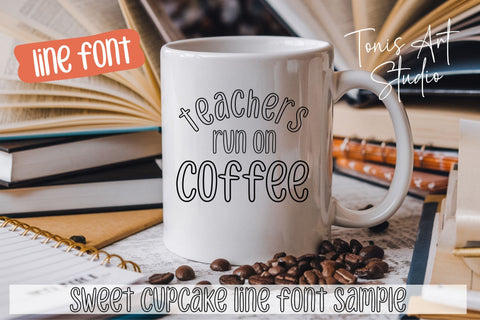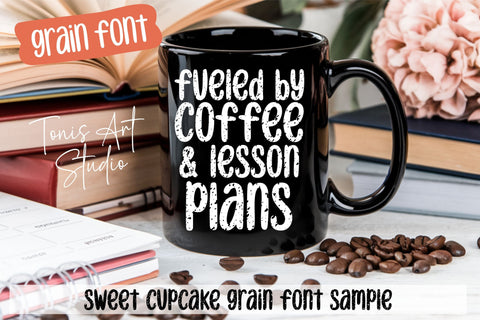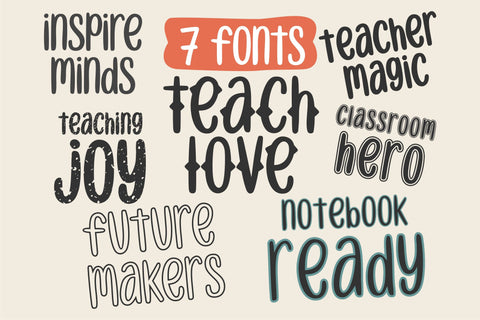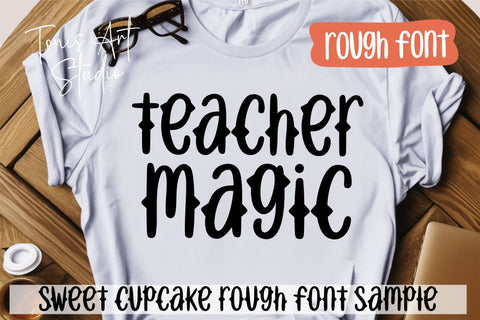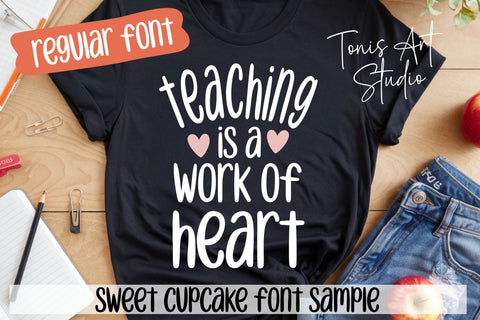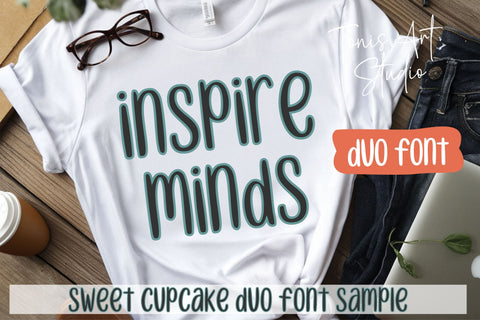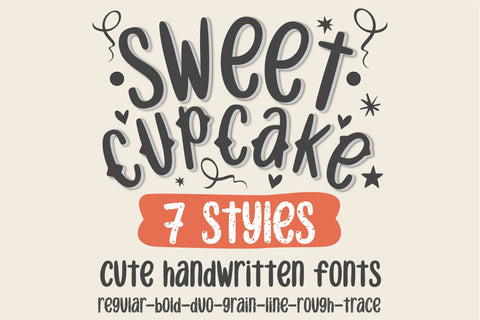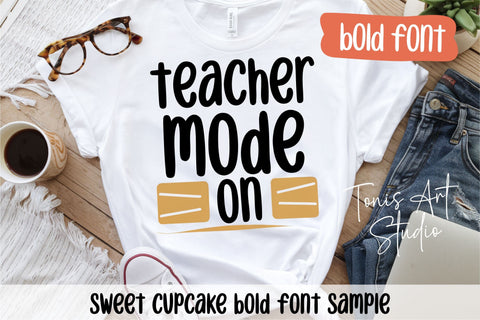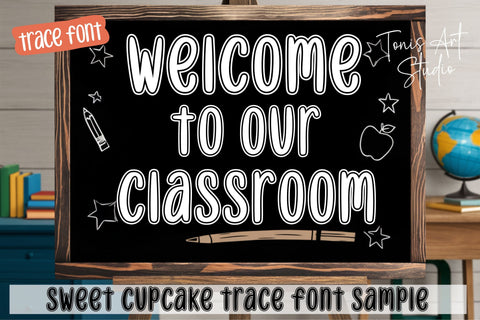
Sweet Cupcake Font Bundle, Cute Handwritten Fonts
Introducing the Sweet Cupcake Font Bundle, a delightful collection of seven playful handwritten fonts designed to add charm and creativity to your projects. This bundle includes the following styles:
Regular: A clean and simple handwritten style.
Bold: A thicker, more pronounced version for emphasis.
Duo: A combination of two complementary styles for versatility.
Grain: A textured variant adding a rustic feel.
Line: A sleek, minimalist outline style.
Rough: A distressed version with an edgy look.
Trace: A light, sketched style for a casual appearance.